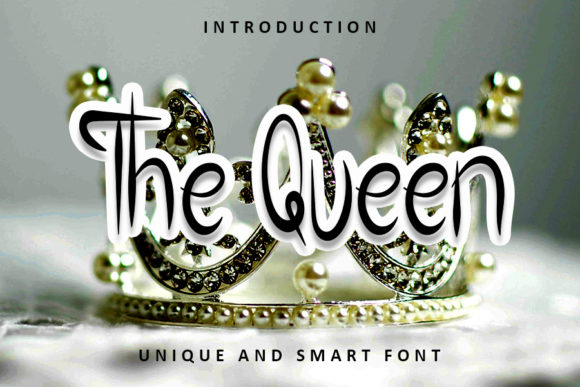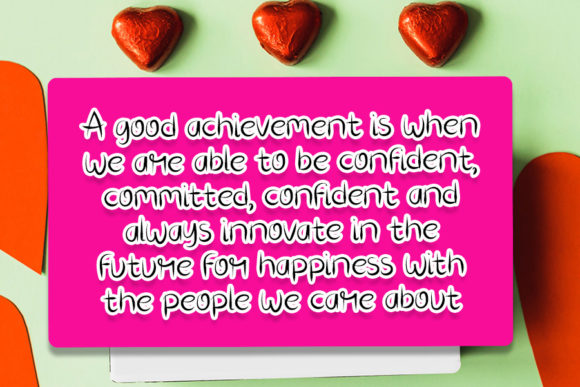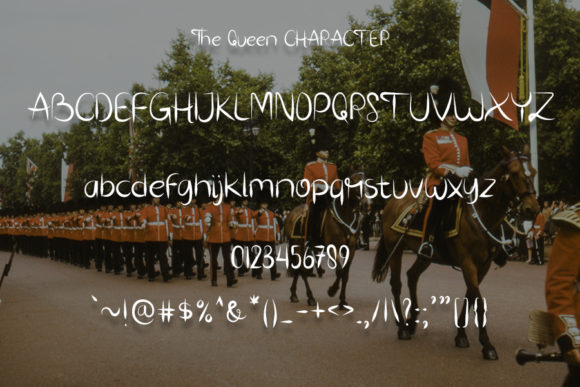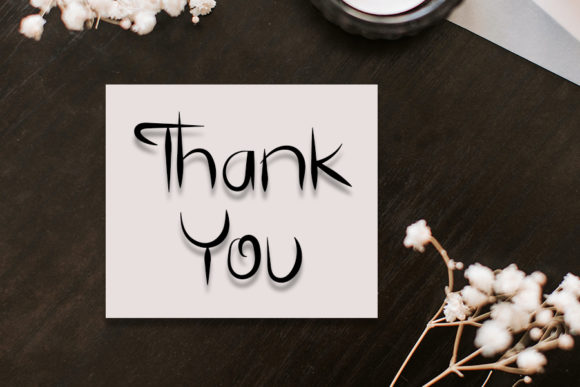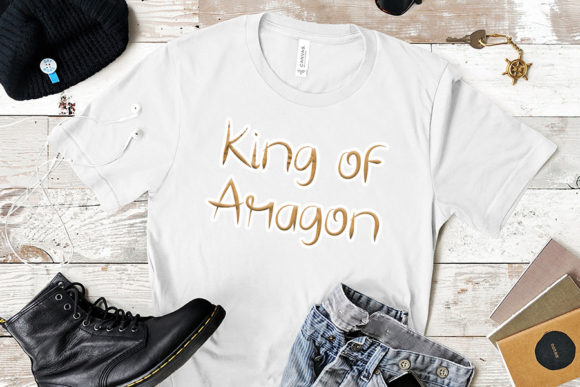
The Queen Font
About The Queen Font
The Queen is a simple, all round and clean handwritten font. Its flexibility and jolly spirit will brighten up each of your designs. Have fun with this beautiful font and explore its endless variations.